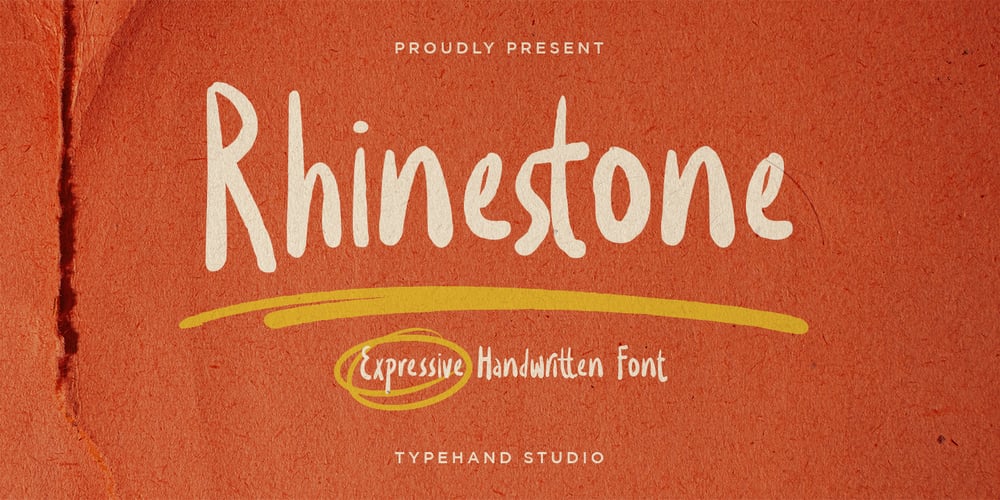
Rhinestone Font Family was designed by Ekki Arbayu Wibisono and published by Typehand Studio. Rhinestone contains 1 styles and family package options. Rhinestone is unique expressive handwritten font. This font is made with joy, made using a custom brush so that it looks natural. There are ligatures and alternates for easy use. bonus some illustrations like doodles or circles.This font can be used as a logo, notepad, or packaging design or etc.